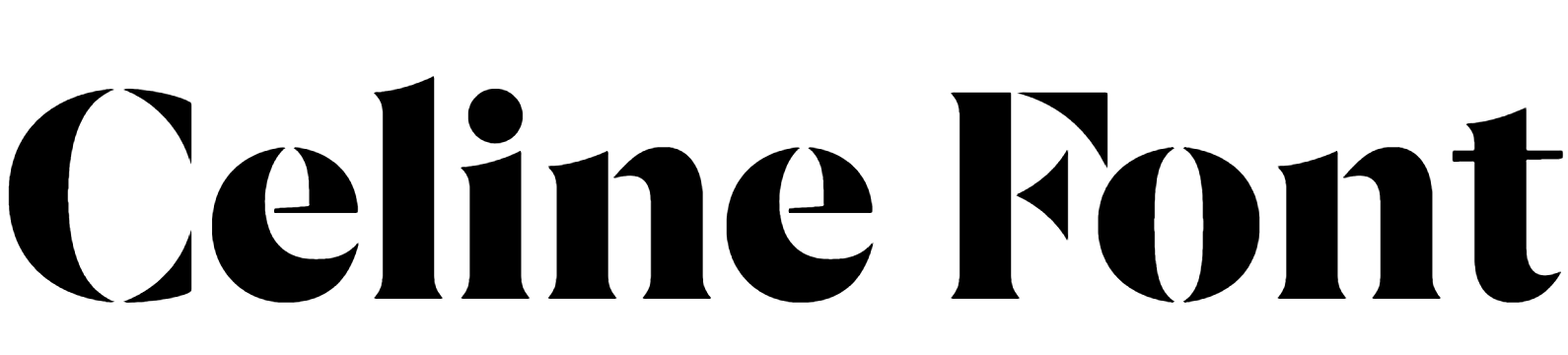
Celine
Celine is a serif font. It has the traditional, bookish feel of type you see in novels, newspapers and long-established brands. You can download it for free and test it with your own words in the preview above.
- Font styles: 1 (Stencil)
- OpenType features: Ligatures (including optional ones)
You get every letter from A to Z in both cases and all the numbers from 0 to 9, which means Celine can handle full sentences, dates and prices. Everyday marks like &, !, ? and @ are there too. Thanks to its accented letters, it also works for Spanish, French, German, Portuguese and Italian, not just English.
Designers usually reach for fonts like Celine when they're making book covers, magazine headlines and classic branding. Serif fonts shine in headlines and printed text. For long paragraphs on phones, check that it still reads well at small sizes.
Yes. Celine includes the accented letters needed for Spanish, French, German, Portuguese and Italian, so it works for more than just English.